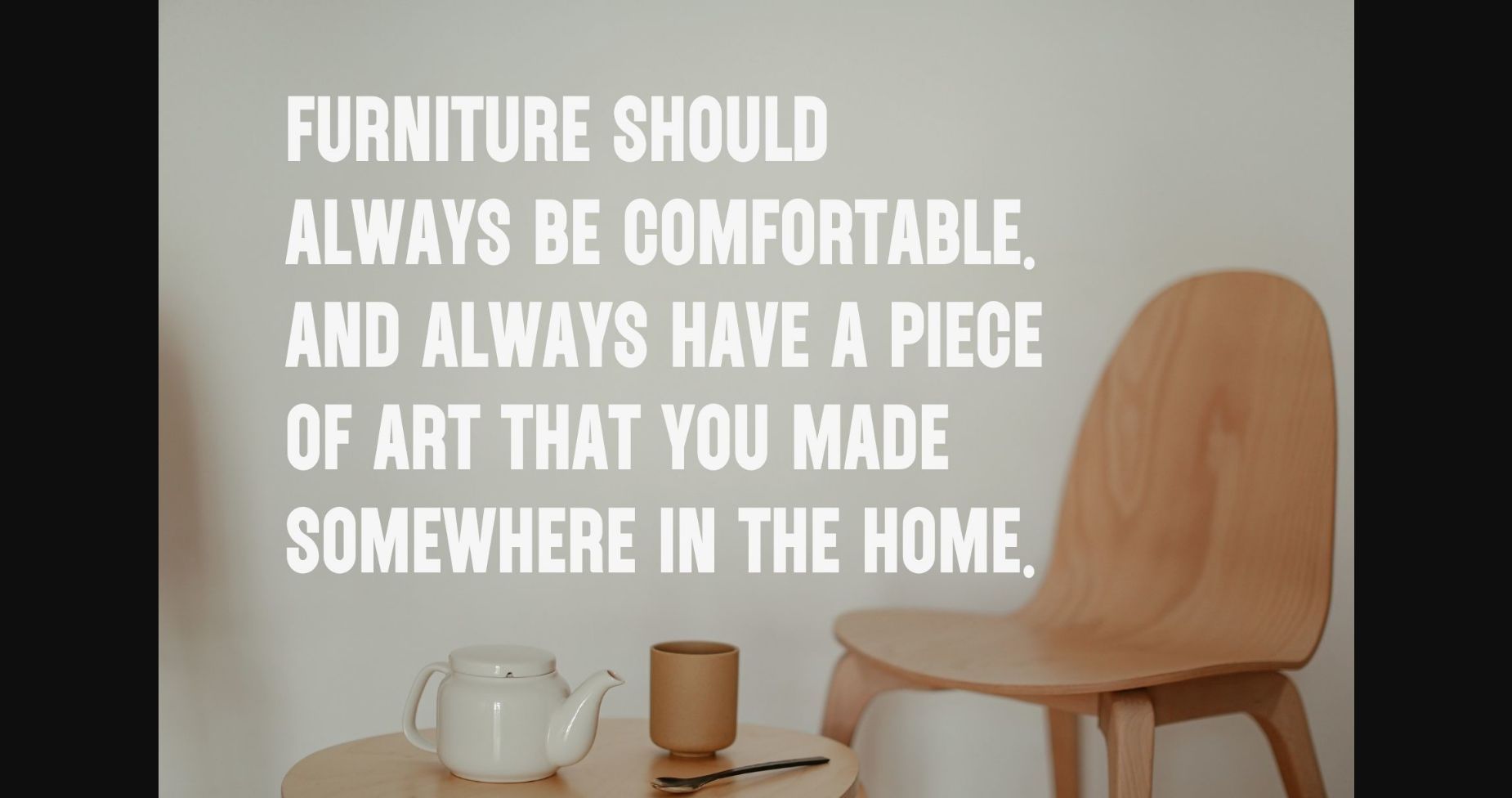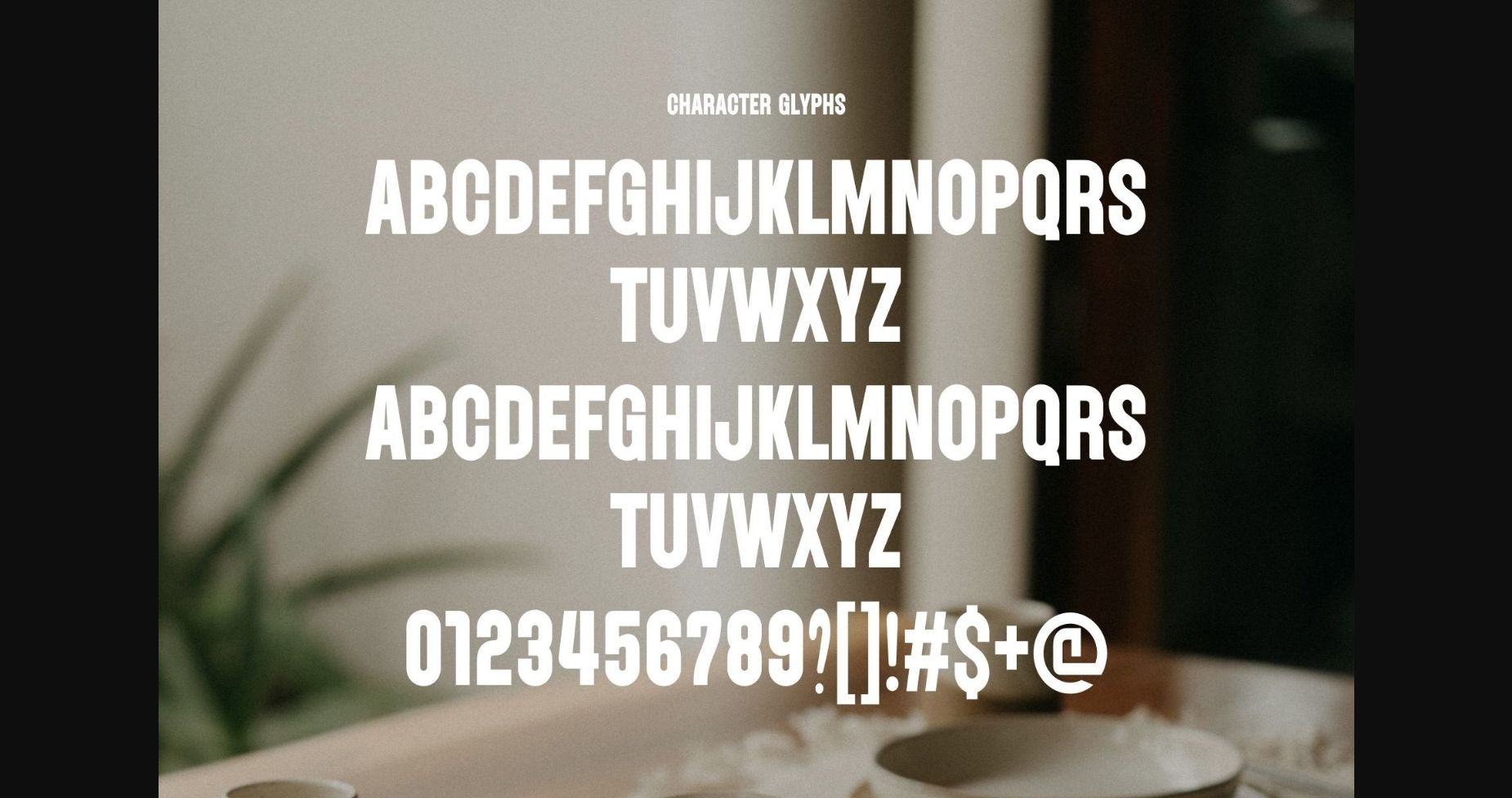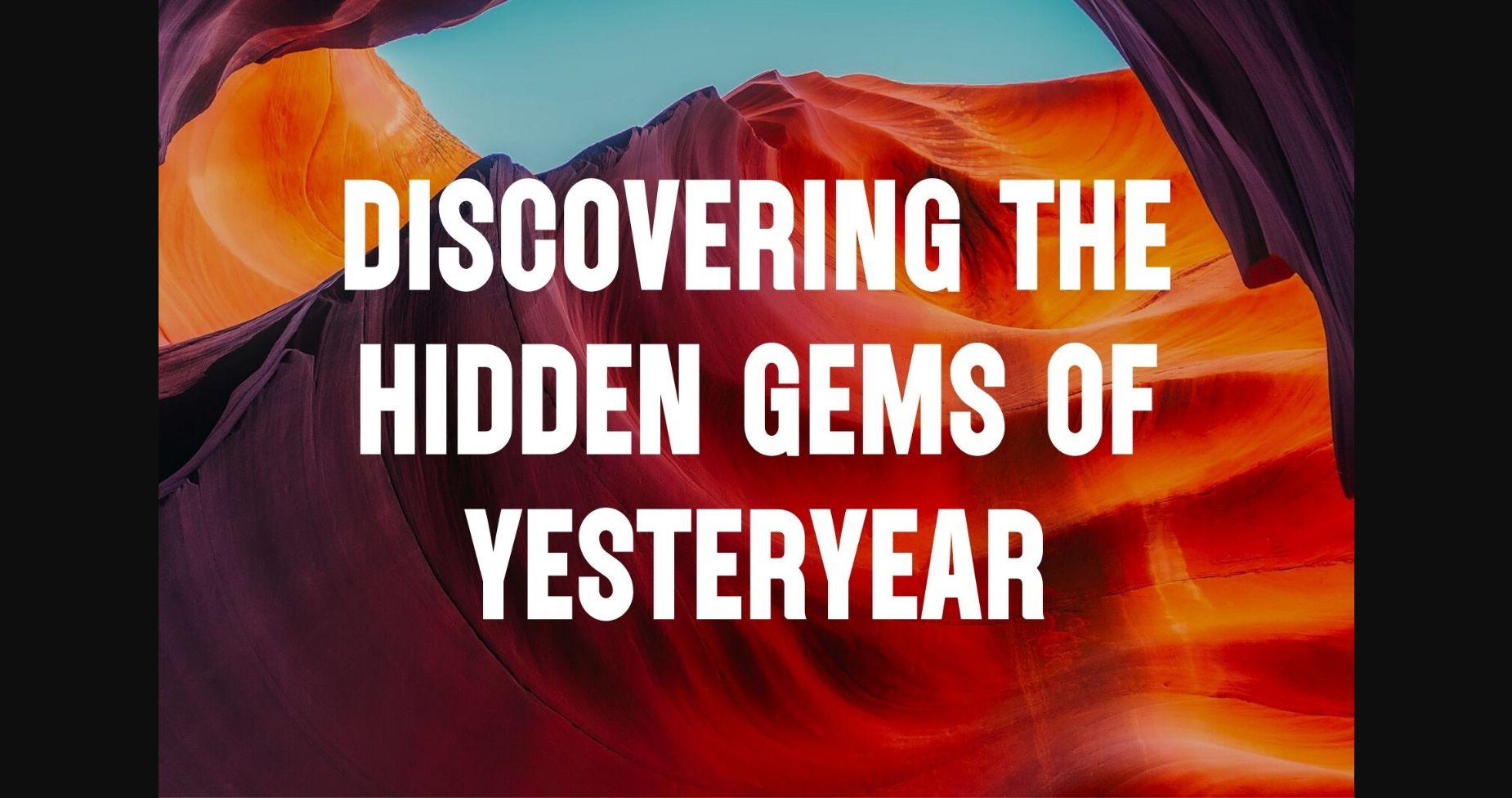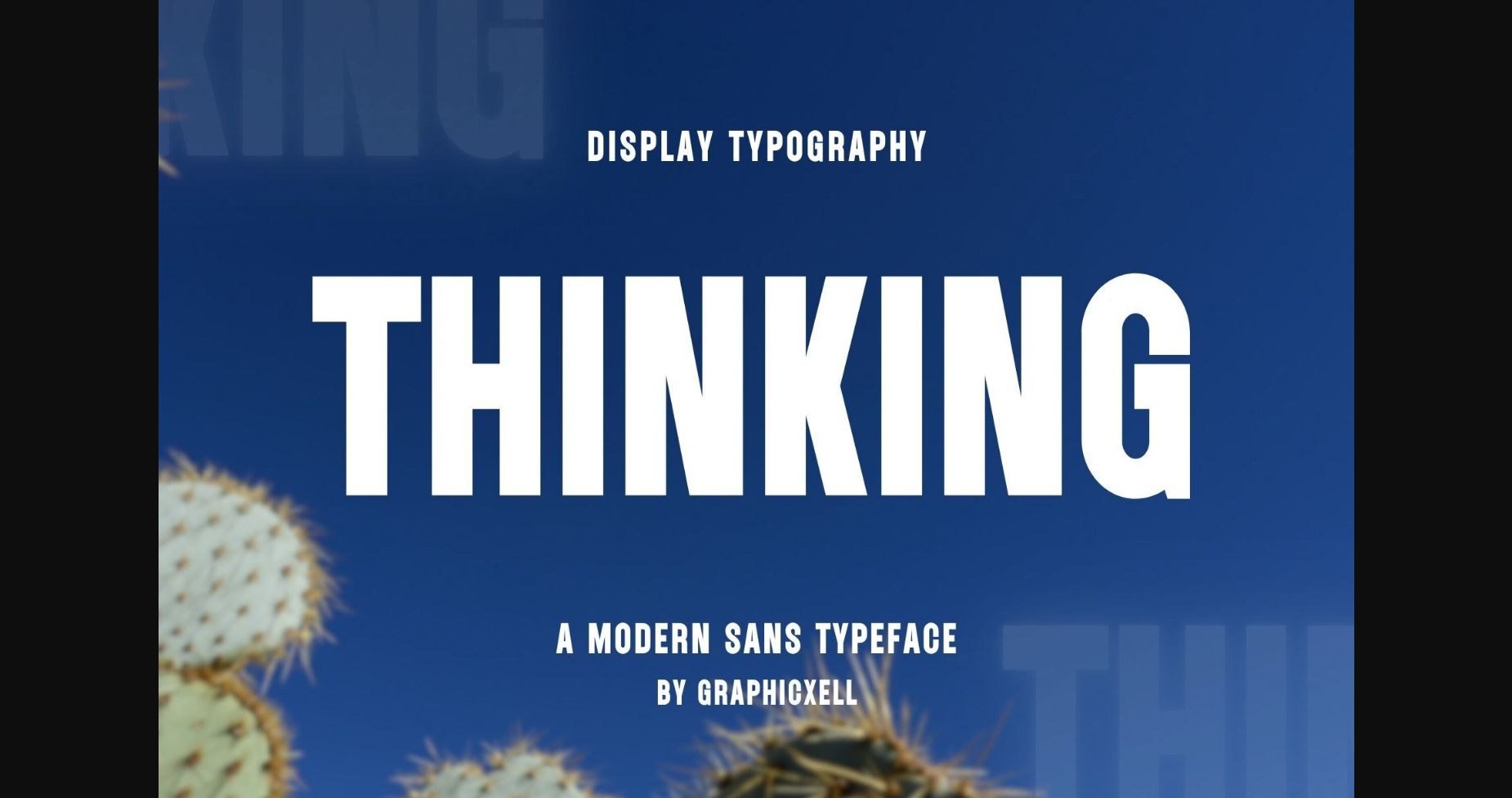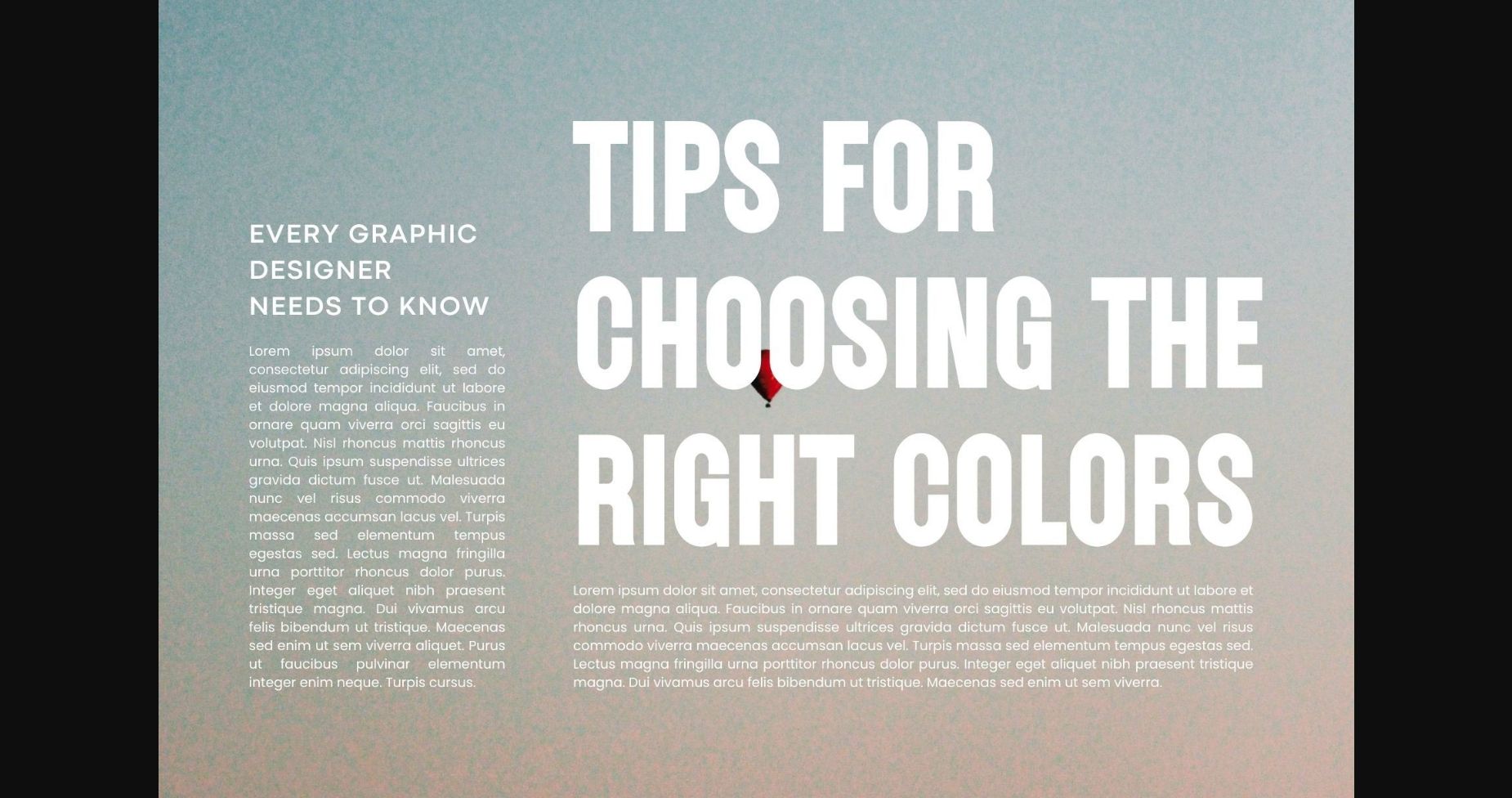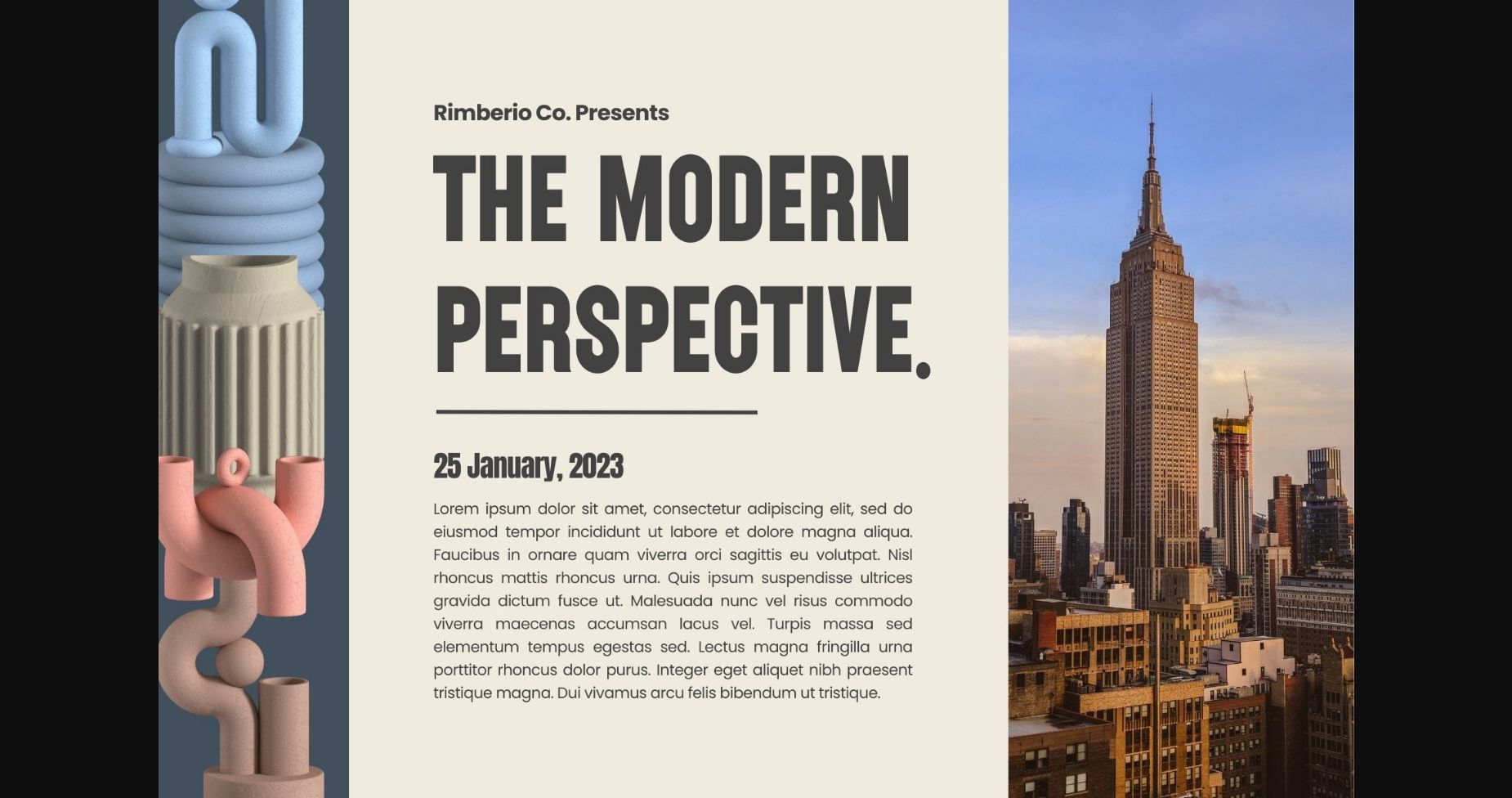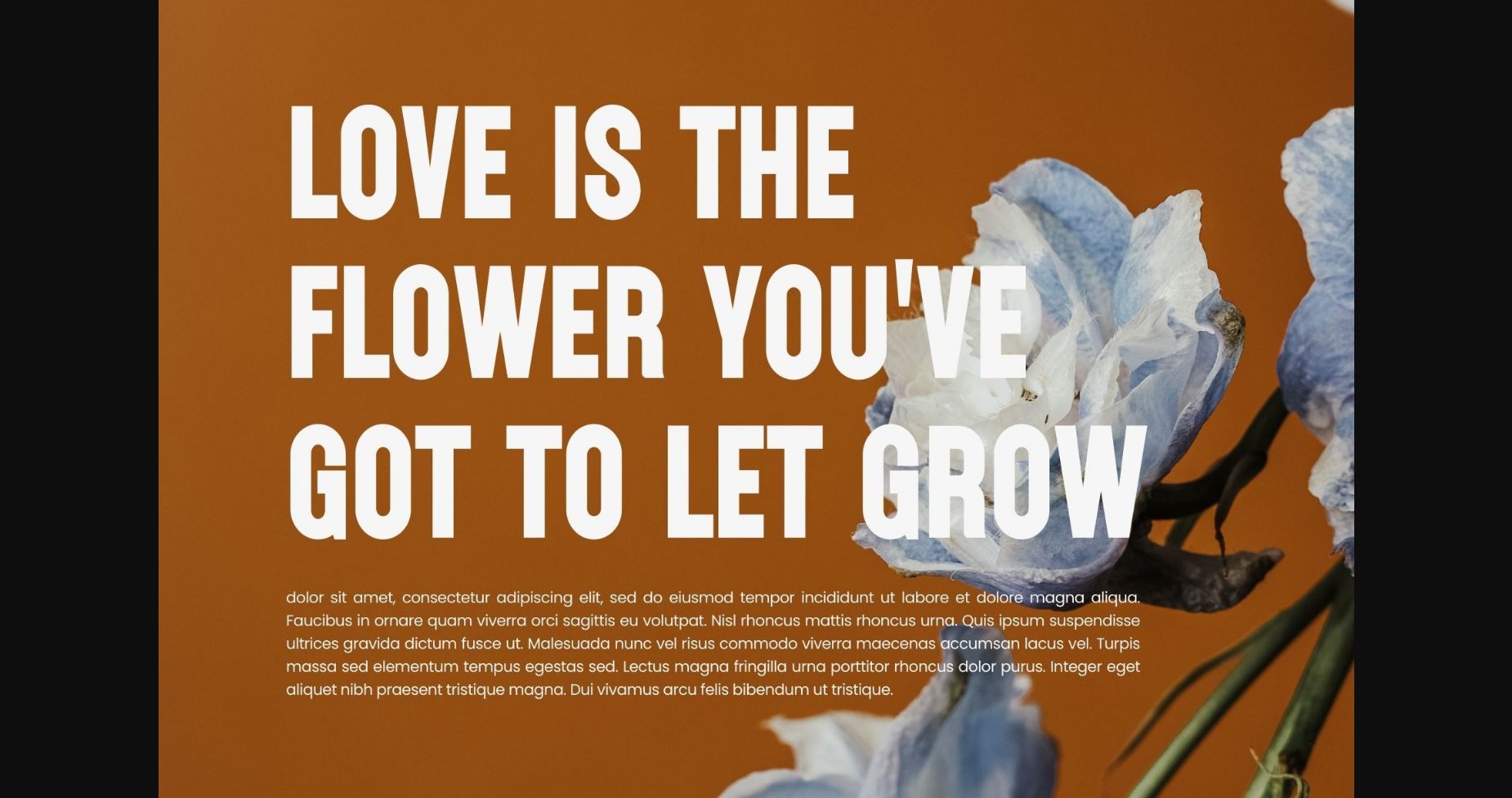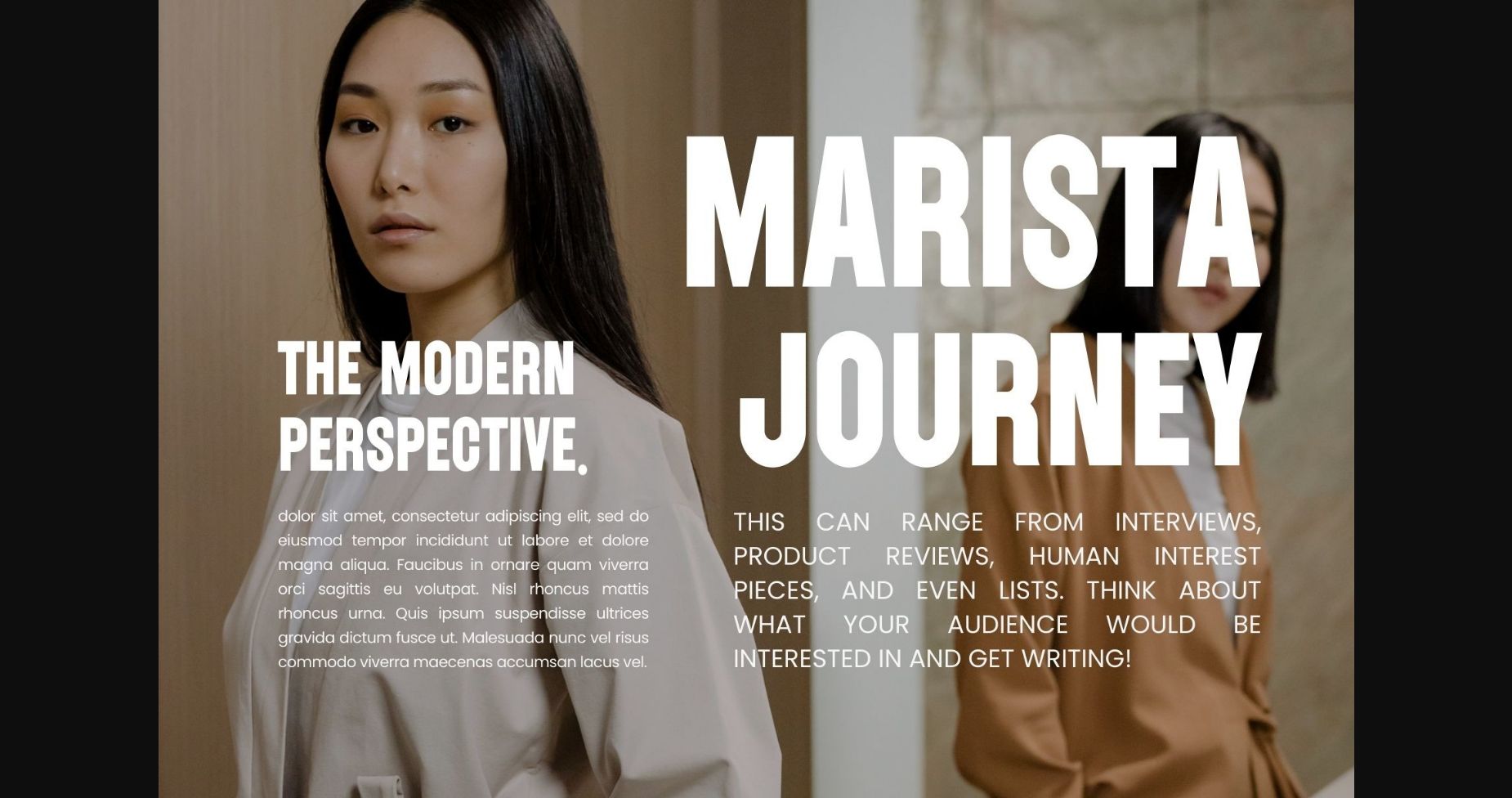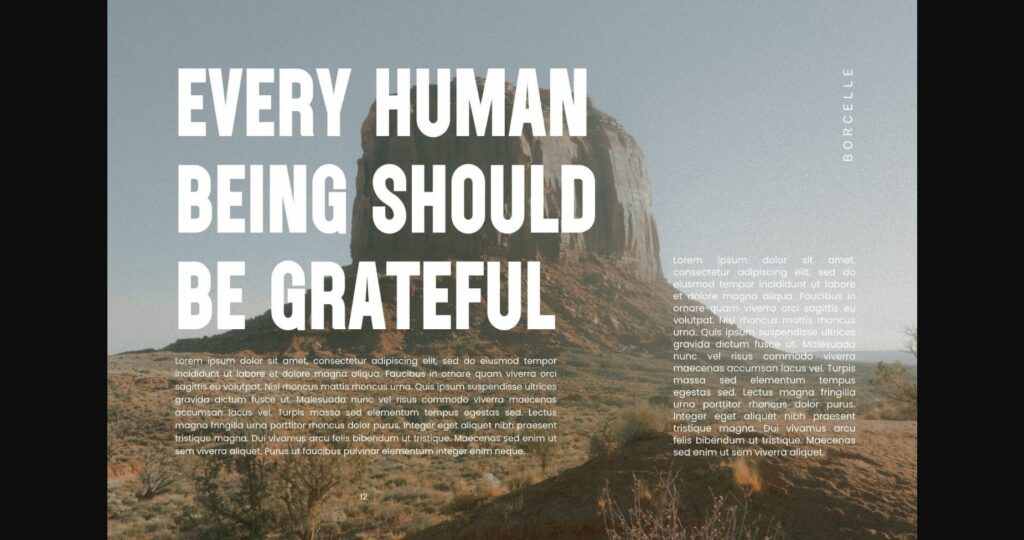
Thinking Font
About Thinking Font
Thinking is a modern and neat sans serif font that exudes simplicity and clarity. With its clean lines and balanced proportions, it offers a sleek and professional appearance suitable for a wide range of design projects. Whether used for headlines, body text, or branding materials, Thinking provides excellent legibility and a contemporary vibe, making it a versatile choice for various applications.